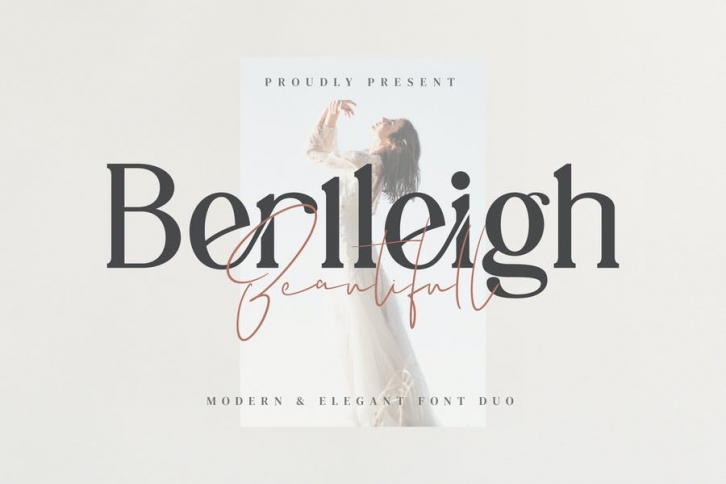
Berlleigh & Beautifull Signature - Stylish Duo Ligature Typeface Display Serif inspired by the famous minimalist logo perfect for the purposes of designing templates, brochures, videos, advertising branding, logos and more.